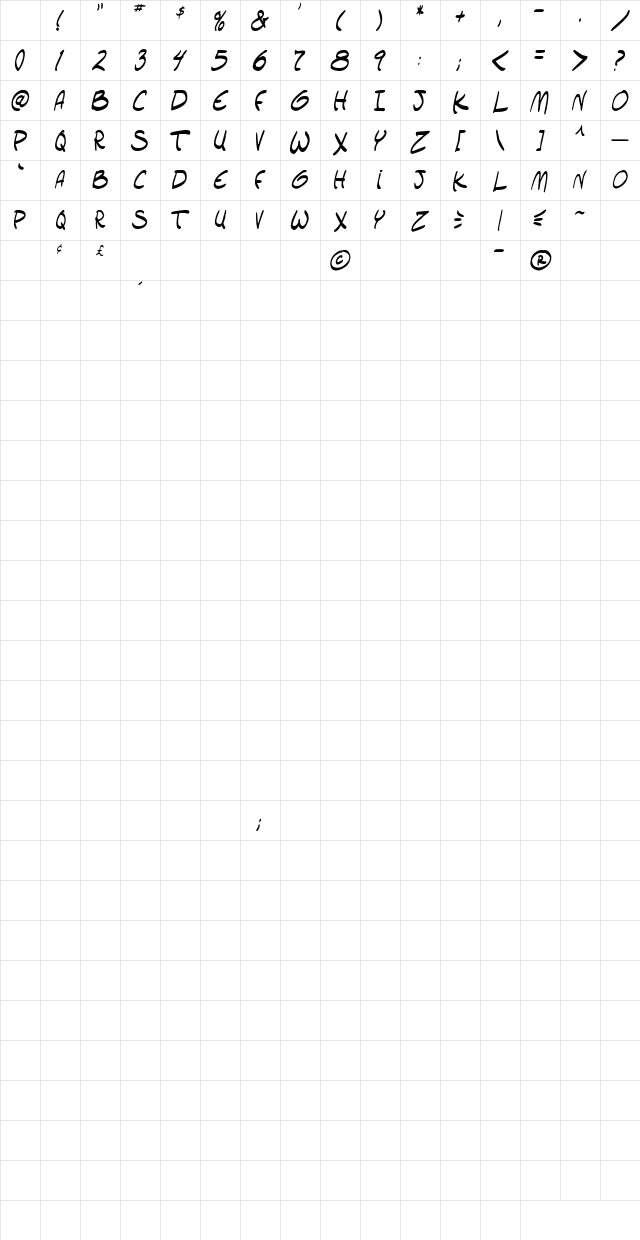
Complete setlist TBS Italic glyph index. Displaying only characters natively supported by setlist TBS Italic font.
setlist TBS is a composed and adaptable typeface that performs quietly and consistently across a wide range of design contexts. The slanted form adds forward momentum and visual energy.